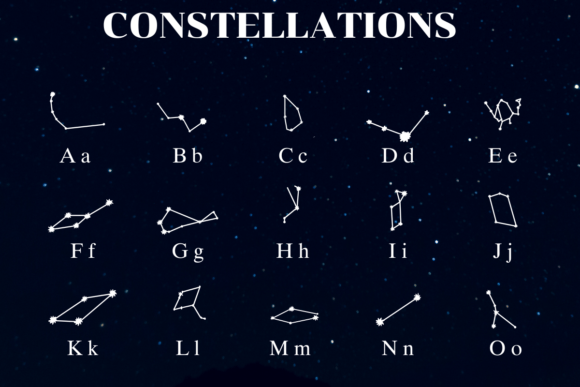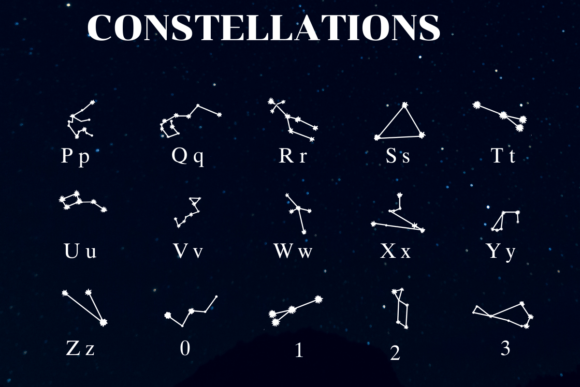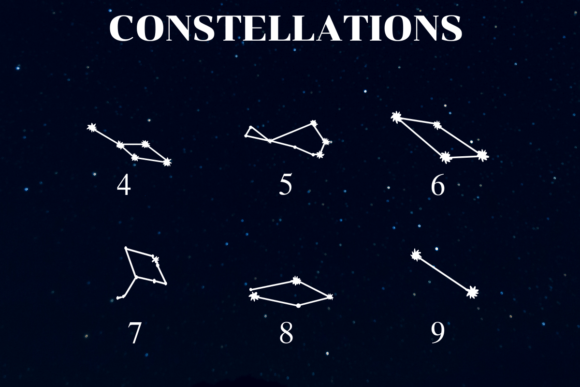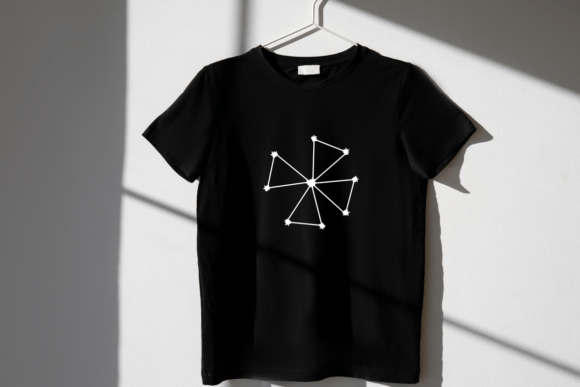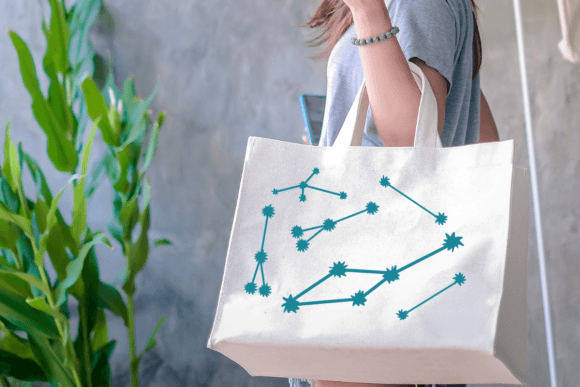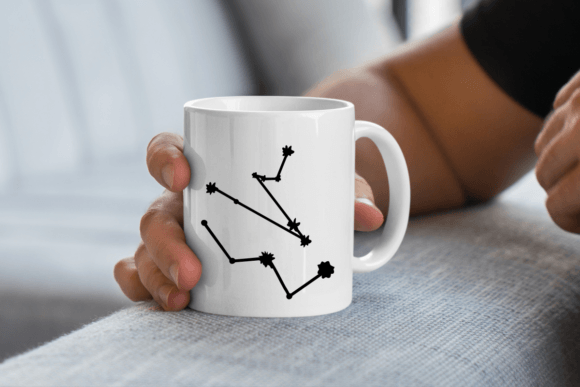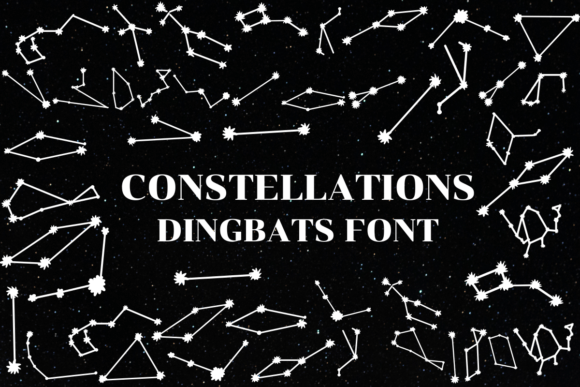
Exploring the Magic of Constellations Font: A Celestial Design Element
Are you a designer or crafter looking for a unique and creative way to add some celestial magic to your projects? Look no further than the Constellations Font, a special font made up of symbols and pictures instead of regular letters. These images represent star patterns, or constellations, that you can see in the night sky. Each symbol in the font looks like a different constellation, making it fun and unique for creative projects.
What is Constellations Font?
Constellations Font is a type of symbol font that uses images of constellations to represent letters, numbers, and other characters. Unlike traditional fonts, which use letters and numbers to convey meaning, Constellations Font uses visual representations of star patterns to create a unique and eye-catching design element. This font is perfect for designers and crafters who want to add a touch of whimsy and wonder to their projects.
The Inspiration Behind Constellations Font
The inspiration behind Constellations Font lies in the night sky and the ancient art of stargazing. For centuries, humans have been fascinated by the stars and the patterns they form. From ancient myths and legends to modern-day astronomy, the study of the stars has captivated our imagination and inspired our creativity. Constellations Font takes this inspiration and brings it to life in a unique and creative way.
Features of Constellations Font
So, what makes Constellations Font so special? Here are some of its key features:
• Unique Symbol Set: Each symbol in the font represents a different constellation, making it a one-of-a-kind design element.
• High-Quality Images: The font includes high-quality images of constellations, ensuring that they look clear and crisp in any design.
• Easy to Use: Constellations Font is easy to install and use, making it accessible to designers and crafters of all levels.
• Versatile: The font can be used in a variety of projects, from digital designs to print materials, and even handmade crafts.
Using Constellations Font in Your Designs
So, how can you use Constellations Font in your designs? Here are some ideas to get you started:
• Create a Celestial-themed Logo: Use Constellations Font to create a logo that represents your brand’s connection to the stars.
• Add a Touch of Whimsy to Your Stationery: Use the font to add a playful touch to your stationery, such as invitations, greeting cards, and journal pages.
• Design a Constellation-inspired Poster: Create a poster that showcases your favorite constellations, using Constellations Font to add a unique design element.
• Make a Starry Night Sky Craft: Use the font to create a handmade craft, such as a starry night sky painting or a constellation-themed collage.
Tips for Working with Constellations Font
Here are some tips for working with Constellations Font:
• Experiment with Different Sizes: Try out different font sizes to see how the constellations look in different scales.
• Combine with Other Fonts: Combine Constellations Font with other fonts to create a unique and eye-catching design.
• Use in Combination with Images: Use the font in combination with images of the night sky or stars to create a cohesive design.
Constellations Font is a unique and creative design element that can add a touch of celestial magic to your projects. With its symbol set of star patterns and constellations, this font is perfect for designers and crafters who want to add a touch of whimsy and wonder to their designs. Whether you’re creating a logo, stationery, poster, or handmade craft, Constellations Font is sure to inspire your creativity and take your designs to new heights.